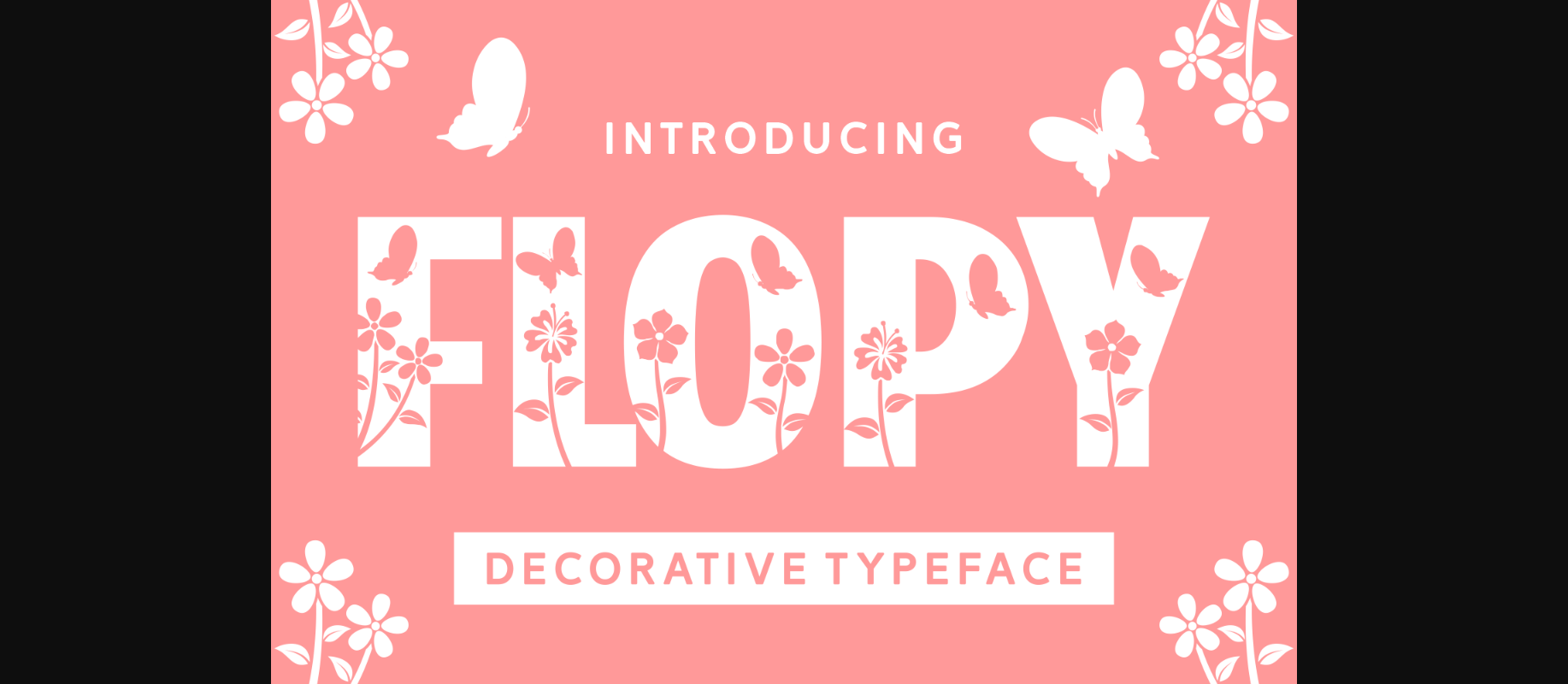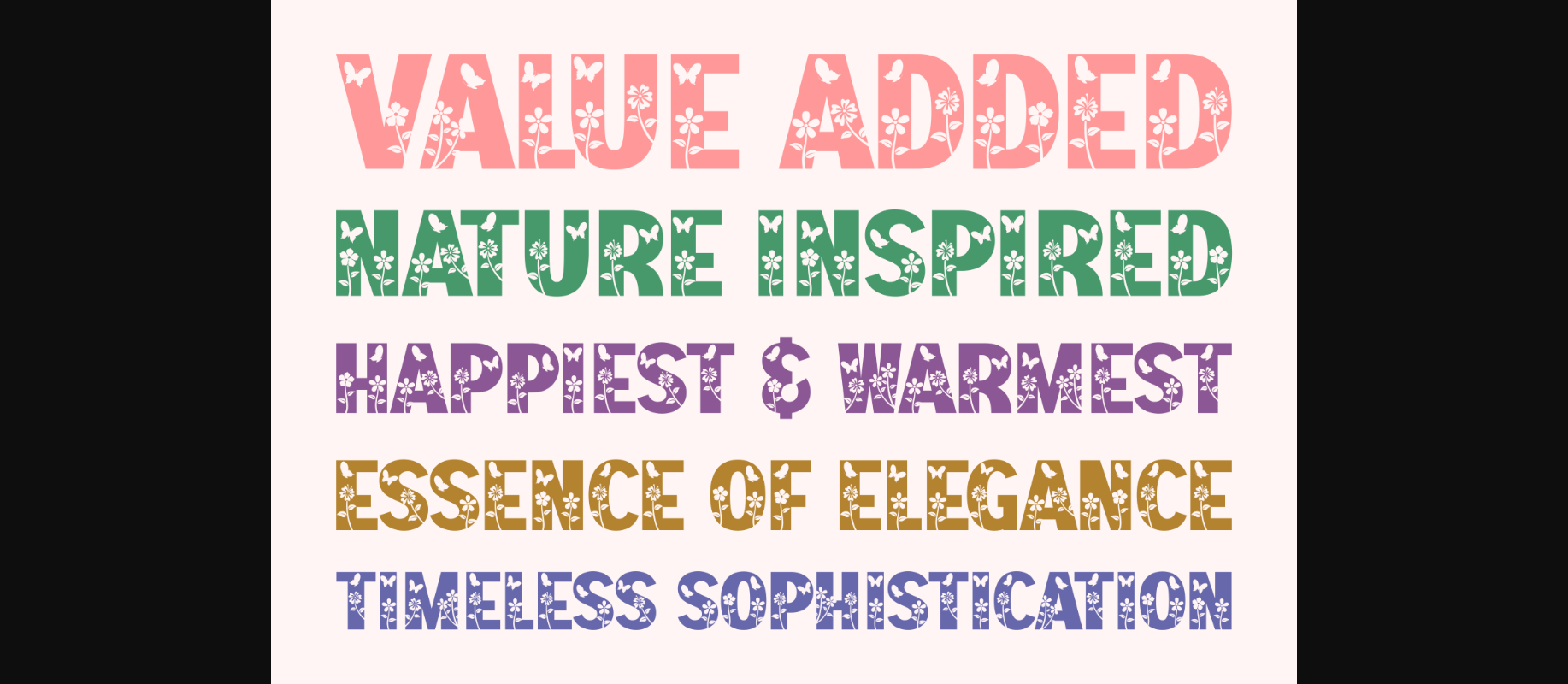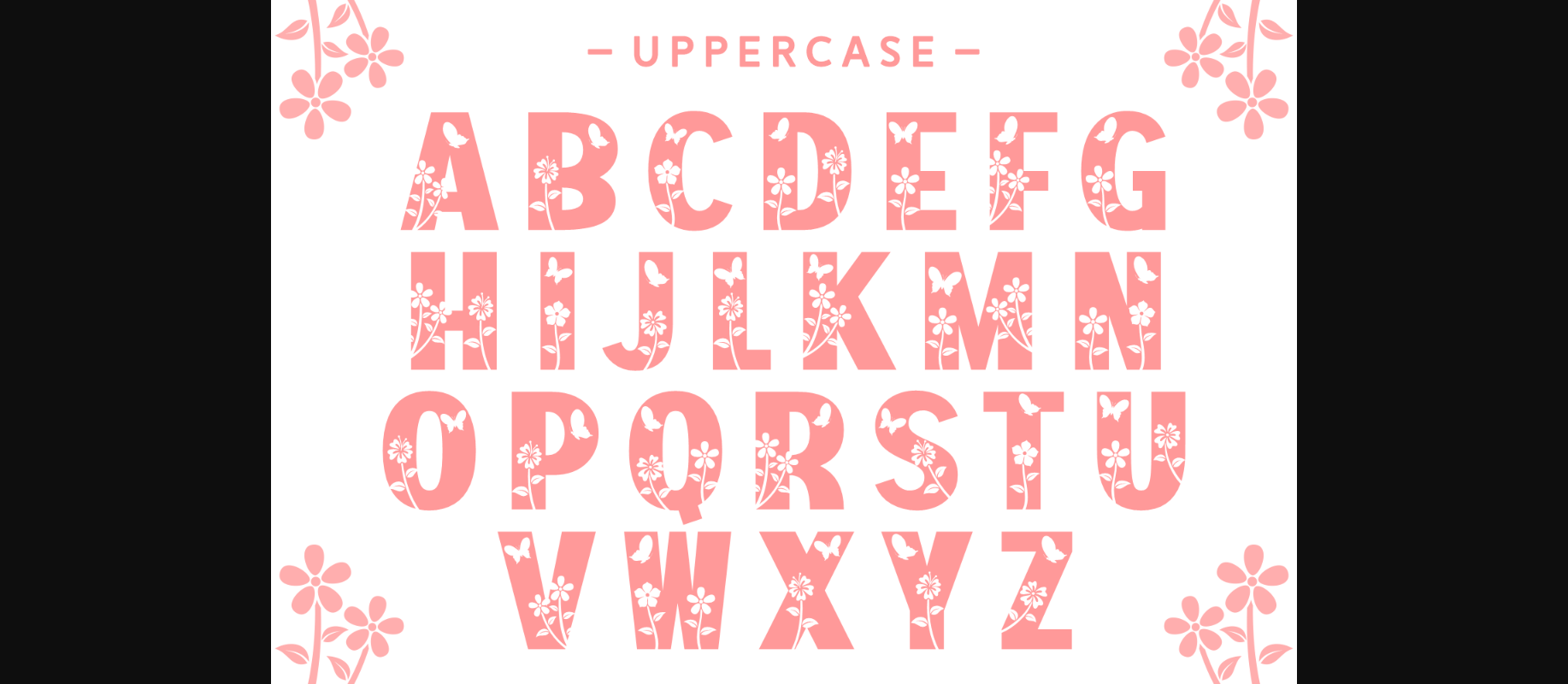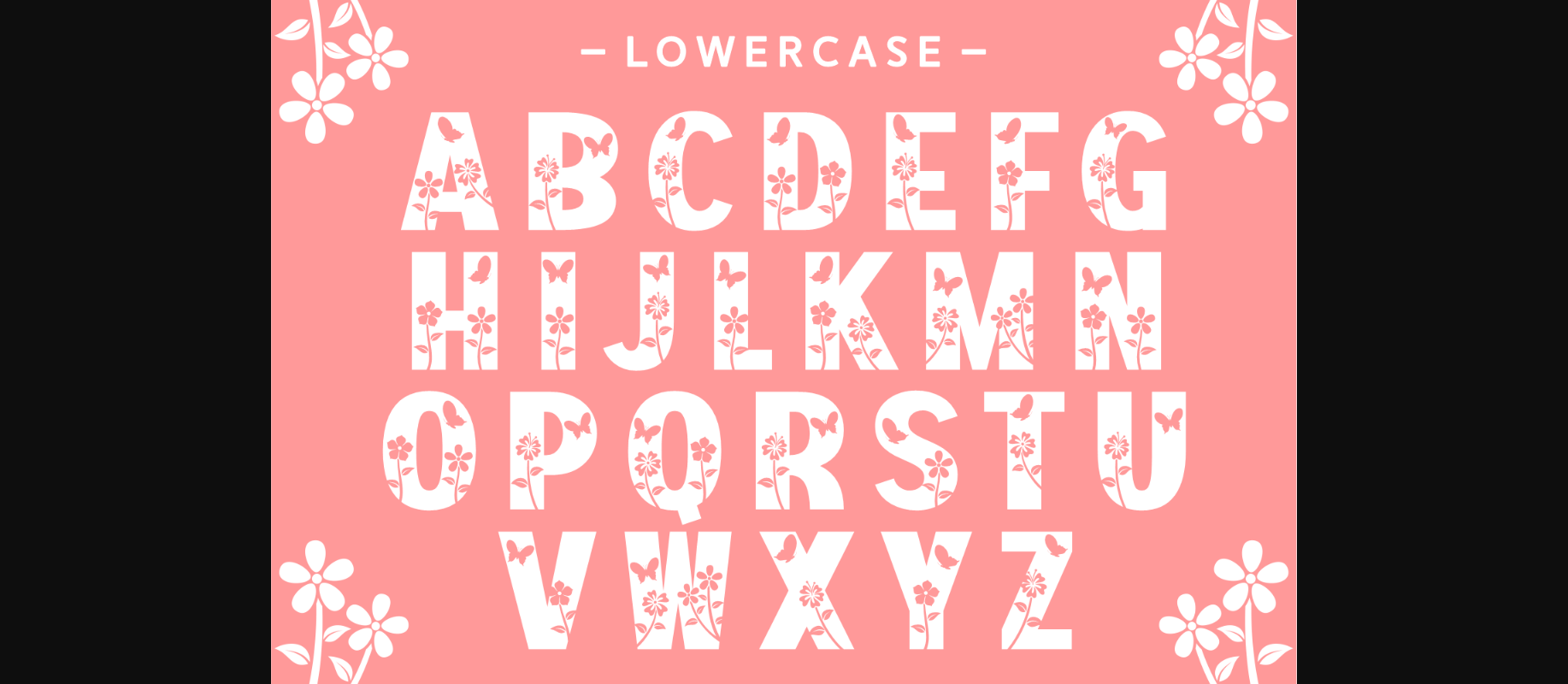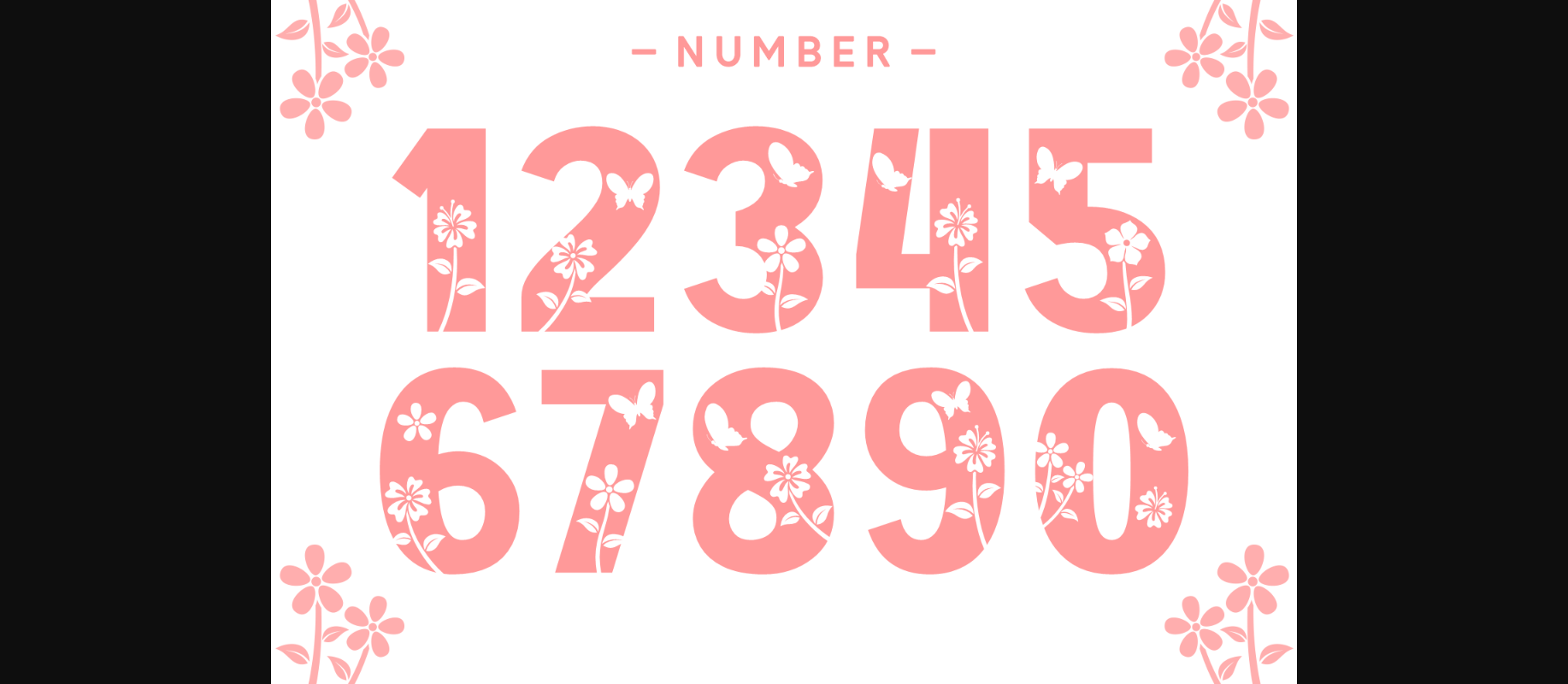
Flopy is a playful and spring-inspired decorative font. You can see beautiful butterflies and flowers inside all character’s set. Set your imagination wild and create amazing Easter cards, wall art, frames, t-shirts, and logos.